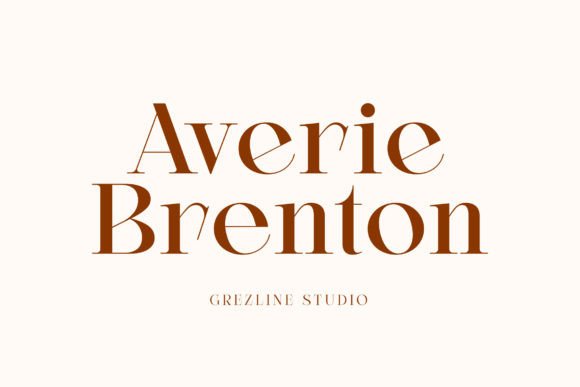
Falling in Love with Averie Brenton Font: A Designer’s Dream Come True
I’ll never forget the moment I stumbled upon Averie Brenton font while working on a wedding invitation project for a client. I had been searching for the perfect font for hours, trying out different serif and sans-serif fonts, but nothing seemed to fit the elegant and bold vibe my client was looking for. That was until I saw Averie Brenton – its classic yet modern style immediately caught my attention, and I knew I had found the one.
An Honest Review of Averie Brenton Font
• ✨ Elegant and bold serif style that’s perfect for making a statement
• ✅ Incredibly versatile – use it for wedding invitations, stationery art, social media posts, and more
• 💫 Beautifully crafted letters with intricate details
• 👍 Highly legible, even at small font sizes
While Averie Brenton font is an amazing addition to any design project, there are a few things to keep in mind:
• 🤔 Some users may find the font a bit too bold for certain applications, such as body text
• ⚠️ Limited availability of certain OpenType features, such as ligatures
The Story Behind Averie Brenton Font
Averie Brenton font was designed with the goal of creating a beautiful and elegant serif font that’s perfect for a variety of design applications. The font’s creator drew inspiration from classic serif fonts, while adding a modern twist to make it more versatile and unique.
Font Name Averie Brenton Font
Author Grezline Studio
Q: What is the best way to use Averie Brenton font?
A: Averie Brenton font is perfect for making a statement with your designs. Use it for wedding invitations, stationery art, social media posts, and more.
Q: Is Averie Brenton font suitable for body text?
A: While Averie Brenton font is highly legible, it may be a bit too bold for body text. Consider using a smaller font size or a different font for longer blocks of text.